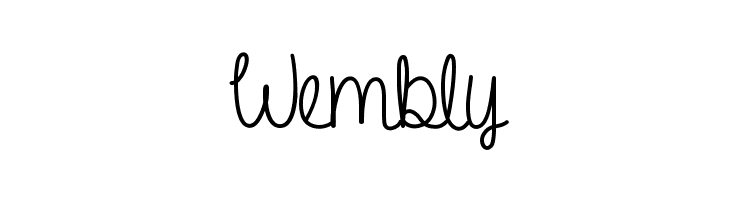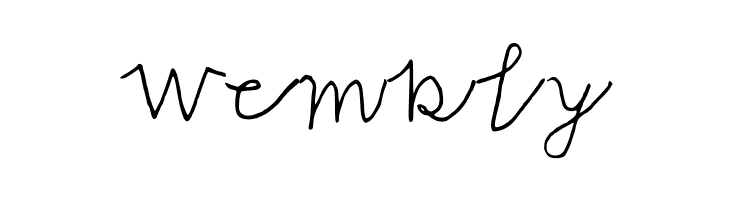
A dynamic, cursive script font with a bold, handwritten style.
A bold, distressed font with boxed characters and a vintage feel.
A bold, distressed font with a vintage, grunge aesthetic.
Bold, boxed font with a distressed, vintage style.
Bold, distressed font with a boxed, cut-out style.
A bold, distressed font with a vintage, grunge aesthetic.
A bold, expressive brush-style font with dynamic strokes and artistic flair.
( Fonts by Jens R. Ziehn - www.filmhimmel.com )
A playful font with bug-themed embellishments on bold, rounded characters.
( Fonts by Jens R. Ziehn - www.filmhimmel.com )
Bold, sans-serif font with a strong, modern presence.
A tall, narrow, and geometric font with a modern aesthetic.
( Fonts by Vanessa Bays - bythebutterfly.com )
A playful, handwritten script font with smooth, connected letters.
A decorative font with geometric lines and curves, offering a futuristic and artistic style.
A gothic, distressed font with ornate and intricate letterforms.
( Fonts by Vanessa Bays - bythebutterfly.com )
A playful, hand-drawn font with tall, narrow letters and a whimsical style.
( Fonts by Cumberland Fontworks - http://www222.pair.com/sjohn/fonts.htm - S. John Ross )
A bold, distressed font with a vintage, rugged appearance.
( Fonts by Nicola Williams )
A playful, handwritten font with thin, uneven strokes and a casual style.
( LJ Design Studios - www.ljdesignstudios.com )
An artistic and decorative font with intricate flourishes and embellishments.
( Fonts by Afkari Studio )
( LJ Design Studios - www.ljdesignstudios.com )
A bold, handwritten font with a casual, artistic style.
( Fonts by Mr Fisk - Mike Larsson - fontorama.net )
A futuristic, geometric font with bold, angular letterforms.
( Ana - www.anasfonts.com/ )
A bold, modern sans-serif font with clean, geometric lines.
A playful, handwritten font with rounded, bubbly characters.
( Fonts by Typography in Decay )
A futuristic, angular font with a dynamic, italicized style.
A bold, italic serif font with a classic yet modern appeal.
A bold, slightly distressed serif font with a hand-crafted feel.
A bold, italicized font with a textured, hand-drawn appearance.